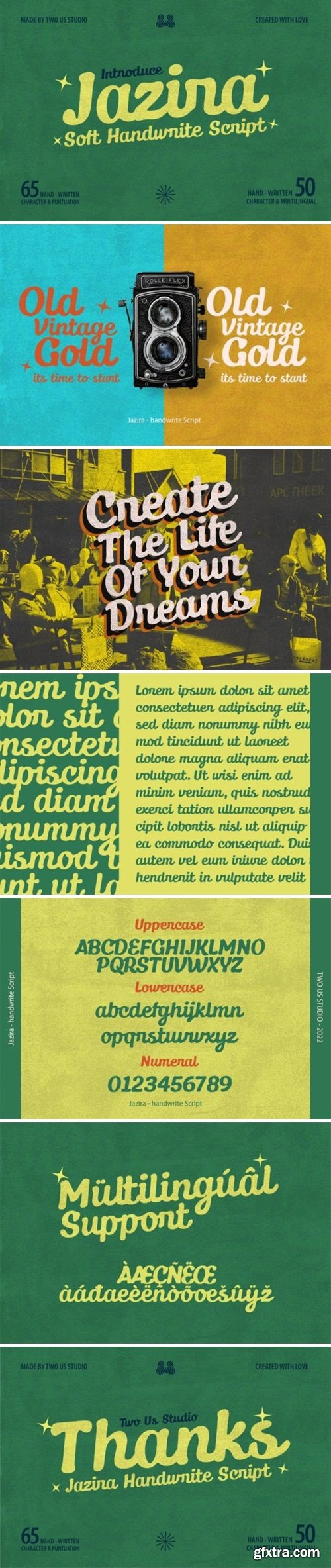
CM - Jazira - Soft Handwrite Script 7288665
Jazira is a retro styled and graceful script font. Fall for its ravishing style and use it to create gorgeous designs. Fall for its ravishing style and use it to create gorgeous wedding invitations, beautiful stationary art, eye-catching social media posts, and much more!